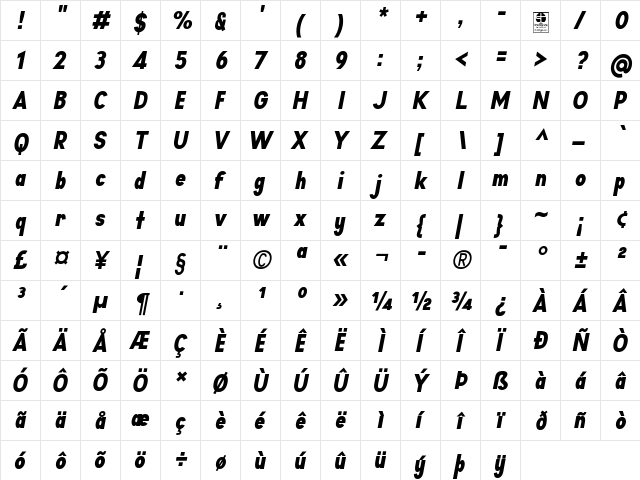
Aprikas Black Italic Demo Regular
| Foundry | StudioTypo |
| Designer | MEHMET ABACI |
Design Context for Aprikas Black Italic Demo Typeface
Aprikas Black Italic Demo takes a measured approach to typography — its balanced proportions and neutral character make it a reliable workhorse for both digital and print work. The dynamic lean of this cut emphasises speed and emphasis in any layout.
Pro Tip: Use Aprikas Black Italic Demo for emphasis, pull quotes, and subheadings where its slanted energy can add rhythm to the layout.